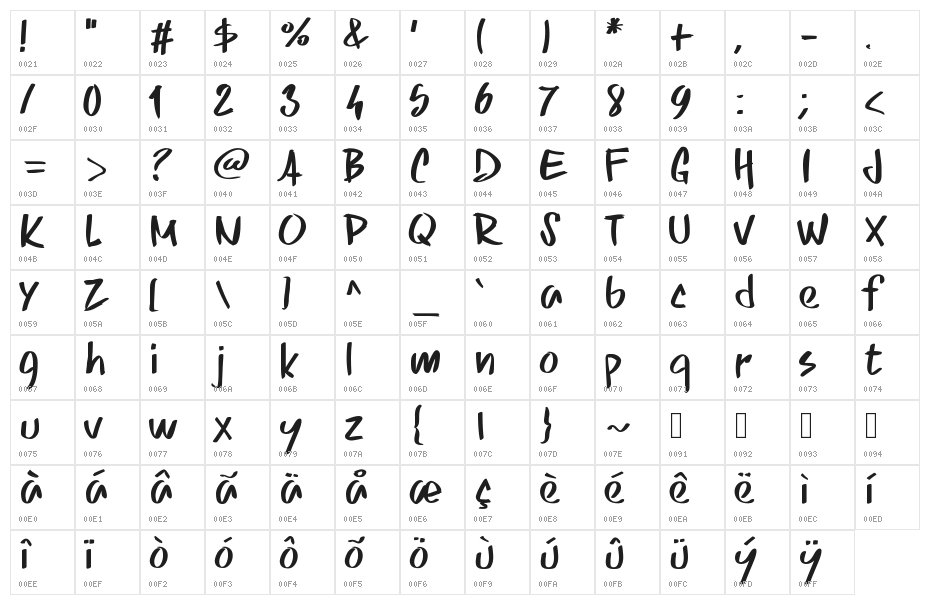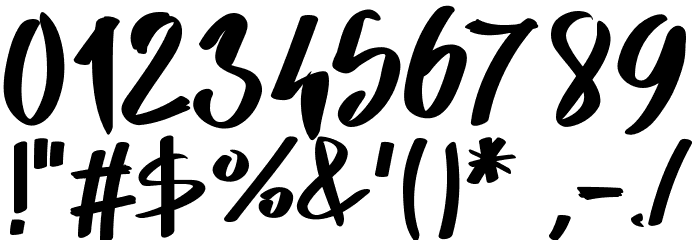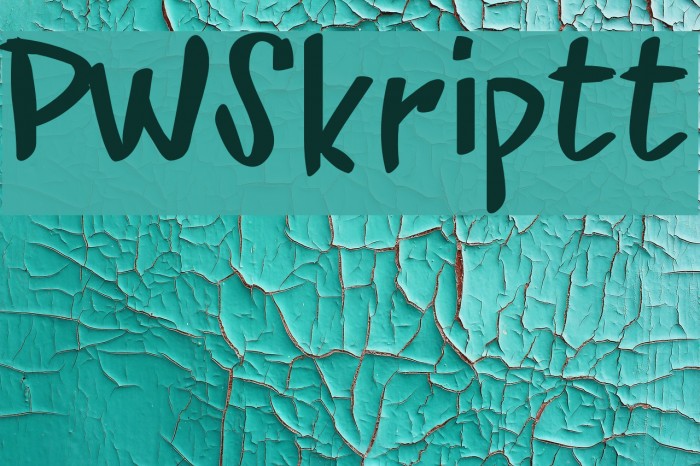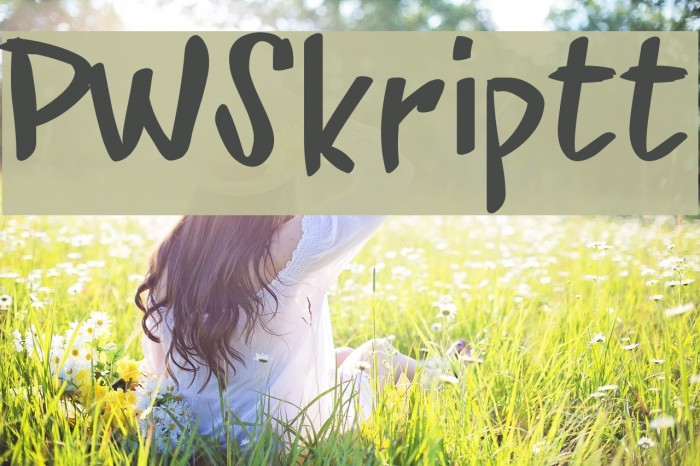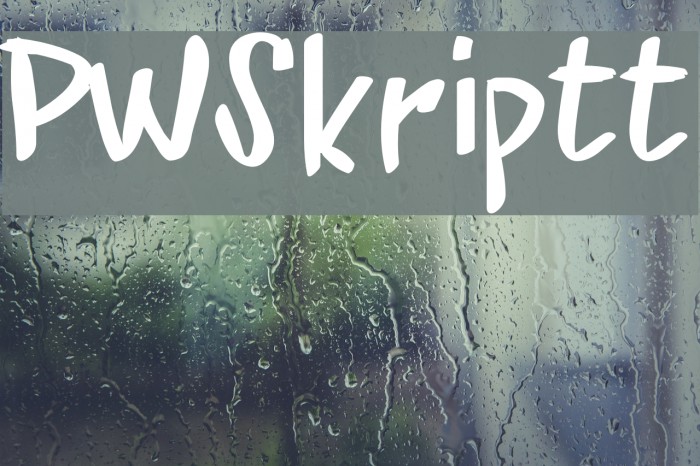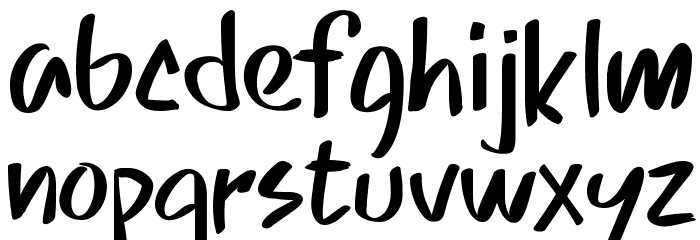
PWSkriptt Font
PWSkriptt Description
This font exudes a lively and dynamic energy, characterized by its bold and expressive strokes. The letters are crafted with a handwritten style, giving it a personal and informal touch. The uppercase and lowercase letters maintain a consistent flow, with slightly exaggerated curves and angles that add to its playful nature. The numerals and special characters follow the same stylistic approach, ensuring uniformity across the font. Its overall appearance is both modern and artistic, making it suitable for creative projects that require a touch of personality and flair.
| Overall Style | Modern, Artistic |
| Proposed Projects | Ideal for greeting cards, posters, branding, and social media graphics where a personal and artistic touch is desired. |